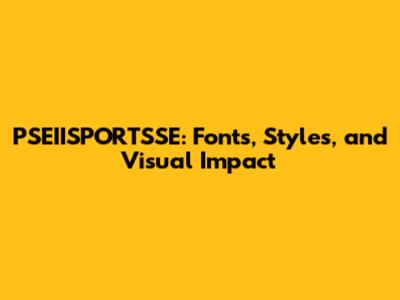
PSEIISPORTSSE: Fonts, Styles, And Visual Impact
Hey guys! Ever wondered about how PSEIISPORTSSE looks when written in different fonts? Well, you're in for a treat! We're diving deep into the world of typography and exploring how the same set of letters can transform and evoke different emotions just by changing the font. This is going to be a fun journey, so buckle up!
Understanding the Basics of Fonts and Typography
Alright, before we get to the cool stuff, let's chat about the basics of fonts and typography. Think of fonts as the clothes your words wear. They significantly influence how people perceive your message. Fonts aren't just about aesthetics; they communicate tone, personality, and even the context of your message. You know, like how a bold, sans-serif font might shout confidence, while a delicate script font whispers elegance.
Typography is the art and technique of arranging type to make written language legible, readable, and appealing when displayed. This includes choosing the right font, size, spacing, and layout. It’s a crucial aspect of visual communication, and when done right, it can capture attention and draw the reader in. Now, when we talk about PSEIISPORTSSE, we are simply a string of letters, but it’s how these letters are presented that changes everything. The choice of font determines its character, be it professional, playful, or something else entirely. Think about it: a logo, a headline, or even a simple signature—the font choice has a massive impact. Different font families like serif, sans-serif, monospace, and script each have their own personality and history. Serif fonts, with their little feet (serifs), often appear more traditional, while sans-serif fonts (without the feet) look modern and clean. Monospace fonts give a techy feel, while script fonts bring a touch of elegance. So, when considering PSEIISPORTSSE, we will be using different font styles and examining how they change the appearance of the string. The design is a crucial aspect of communication. Understanding this helps you to better appreciate the design choices behind different kinds of font styles. Typography is a powerful tool. It's not just about making things look pretty; it's about conveying the right message to your audience. The proper use of fonts can drastically improve readability and engagement, as well as ensure that the design communicates the correct tone and personality.
Font Styles and Their Impact on Perception
The perception of font styles is interesting and crucial. Let's delve deeper into how these fonts can affect how we read PSEIISPORTSSE.
• Serif Fonts: Serif fonts, like Times New Roman or Georgia, typically have small decorative strokes (serifs) at the end of each letter. They're often associated with tradition, reliability, and formality. When PSEIISPORTSSE is written in a serif font, it might give off a sense of established authority or classic style. It can make the string appear more sophisticated, formal, and trustworthy, which is perfect if you want to give a sense of longevity or experience.
• Sans-Serif Fonts: Sans-serif fonts, such as Arial or Helvetica, lack the decorative strokes. These fonts often project a modern, clean, and minimalist aesthetic. In a sans-serif font, PSEIISPORTSSE might seem more contemporary, direct, and approachable. It's the go-to for many brands and websites because of its simplicity and readability. A sans-serif font is great for a sense of modernity and clarity.
• Monospace Fonts: Monospace fonts, like Courier New, assign each letter the same amount of horizontal space. They're often associated with coding, typewriters, and a technical feel. When PSEIISPORTSSE is written in monospace, it gives it a utilitarian, functional look, which is popular for displaying code or data.
• Script Fonts: Script fonts mimic handwriting and often bring a touch of elegance, creativity, and personality. In a script font, PSEIISPORTSSE becomes more stylized, artistic, and personalized. These fonts are great for anything that demands a touch of personality.
Exploring PSEIISPORTSSE in Various Font Styles
Now, let's get into the fun part: seeing how PSEIISPORTSSE transforms in different fonts. We'll explore a variety of fonts and discuss the impressions each one creates. Remember, it is a fun exploration of design.
PSEIISPORTSSE in Serif Fonts
Let’s start with some serif fonts. Think of the PSEIISPORTSSE in Times New Roman – it suddenly feels like something you'd see in a textbook or a formal document. The serifs add a sense of history and gravitas, which could be great if you want to convey a sense of tradition or reliability.
Now, imagine it in Garamond, another popular serif font. Garamond is known for its elegance and readability. PSEIISPORTSSE in Garamond could look refined, perfect for a high-end brand or a classy logo. The serifs lend a touch of sophistication that commands attention.
PSEIISPORTSSE in Sans-Serif Fonts
Moving on to sans-serif fonts, let’s see how they change the vibe. Picture PSEIISPORTSSE in Arial. Arial gives off a clean, modern feel. It’s straightforward, easy to read, and works well in many contexts. It's a great choice if you want to communicate simplicity and efficiency.
Next, let’s try Helvetica. Helvetica is a classic sans-serif font known for its neutrality and versatility. PSEIISPORTSSE in Helvetica would look clean, reliable, and professional, making it suitable for a wide range of applications, from branding to informational graphics. Its legibility and timeless design make it a safe and effective choice for any project.
PSEIISPORTSSE in Monospace Fonts
Monospace fonts, though less common for general use, offer a unique aesthetic. Consider PSEIISPORTSSE in Courier New. The fixed-width letters give a technical or retro feel. It is a good choice if you're aiming for a vintage aesthetic or perhaps want to give a nod to the world of coding and technology. Its equal spacing creates a distinct visual rhythm.
PSEIISPORTSSE in Script Fonts
Script fonts add a touch of personality and flair. Imagine PSEIISPORTSSE in a beautiful script font like Brush Script MT. The flowing curves and handwritten style transform the string into something elegant, creative, and personalized. Great for a signature, a logo, or anything that wants to evoke a sense of artistry or individuality. Each letter seems to dance across the page. Alternatively, a font like Lobster, with its bolder and more playful design, could make PSEIISPORTSSE feel fun and inviting. Script fonts can instantly make a brand or design feel more friendly and approachable.
The Psychology Behind Font Choices
Ever wondered why certain fonts make you feel a certain way? It's all about the psychology behind font choices. Fonts tap into our emotions and subconscious, influencing how we perceive a message. For instance, a font with sharp edges might convey a sense of strength or aggression, while rounded fonts often appear friendlier and more approachable. This is where the magic of design happens: understanding how fonts make us feel. The choice of font can have a great impact on how people see our brand.
• Readability: Fonts that are easy to read build trust. Clear, legible fonts are essential for getting your message across effectively. Fonts that are easy on the eyes increase the chances of the reader staying engaged.
• Brand Personality: Fonts play a vital role in defining the personality of a brand. They can communicate things like professionalism, playfulness, sophistication, or approachability.
• Target Audience: Choose fonts that appeal to your target audience. A font that is perfect for a children's book might not be suitable for a legal document.
• Context Matters: The font should match the context. The font for a website needs to be different from the font for a formal letter. Remember, the goal is always to create a great design.
Practical Applications: Where You Can Use Different Fonts
So, where can you actually apply all this font knowledge? Let's explore some practical applications. This is not only for fun, you will be able to apply this to real projects.
• Logos and Branding: Fonts are central to logo design and branding. Choosing the right font helps create a visual identity for your brand.
• Website Design: Fonts influence readability and user experience on websites. Choosing the right font can make the website more appealing.
• Print Materials: Posters, flyers, and brochures all benefit from careful font choices, which should complement the overall design and message.
• Social Media: Fonts are important for grabbing attention in social media posts. The right font can make your posts more appealing and boost engagement.
Tips for Choosing the Right Font for PSEIISPORTSSE
Here are some quick tips for picking the perfect font for PSEIISPORTSSE, or any other text, for that matter.
• Consider Your Audience: Understand who you're trying to reach. What fonts will resonate with them?
• Think About the Message: The font should align with the message. Does it convey seriousness, fun, or something else?
• Keep it Readable: Prioritize readability. Make sure the font is clear and easy to understand.
• Experiment: Don't be afraid to test different fonts. See what looks best and feels right.
• Consistency: Maintain font consistency across all your designs for a cohesive brand identity.
Conclusion: The Power of Fonts
And that's a wrap, guys! We hope you enjoyed this journey through the world of fonts and typography. Remember, choosing the right font is about more than just aesthetics; it's about effective communication. Whether you are using PSEIISPORTSSE, or any other word or phrase, the font you choose can influence how the message is received. So, go out there, experiment with different fonts, and see how they can transform your message. Happy designing!